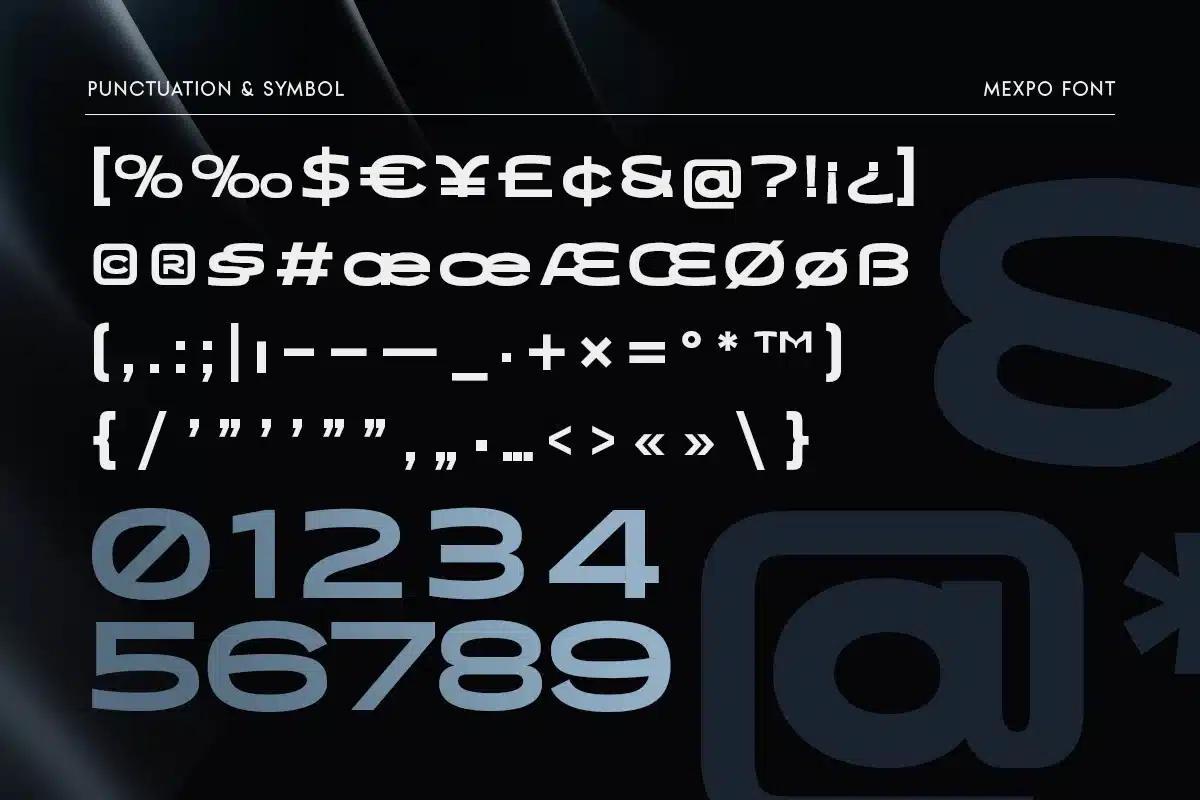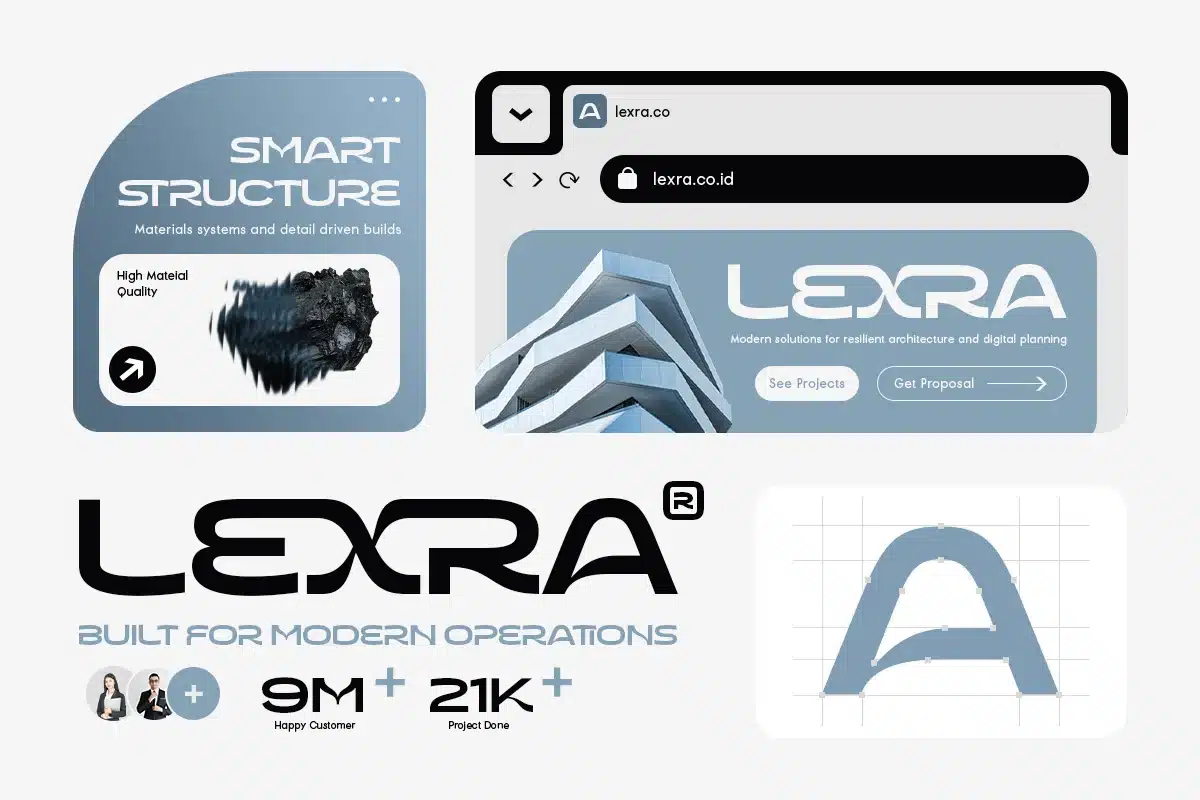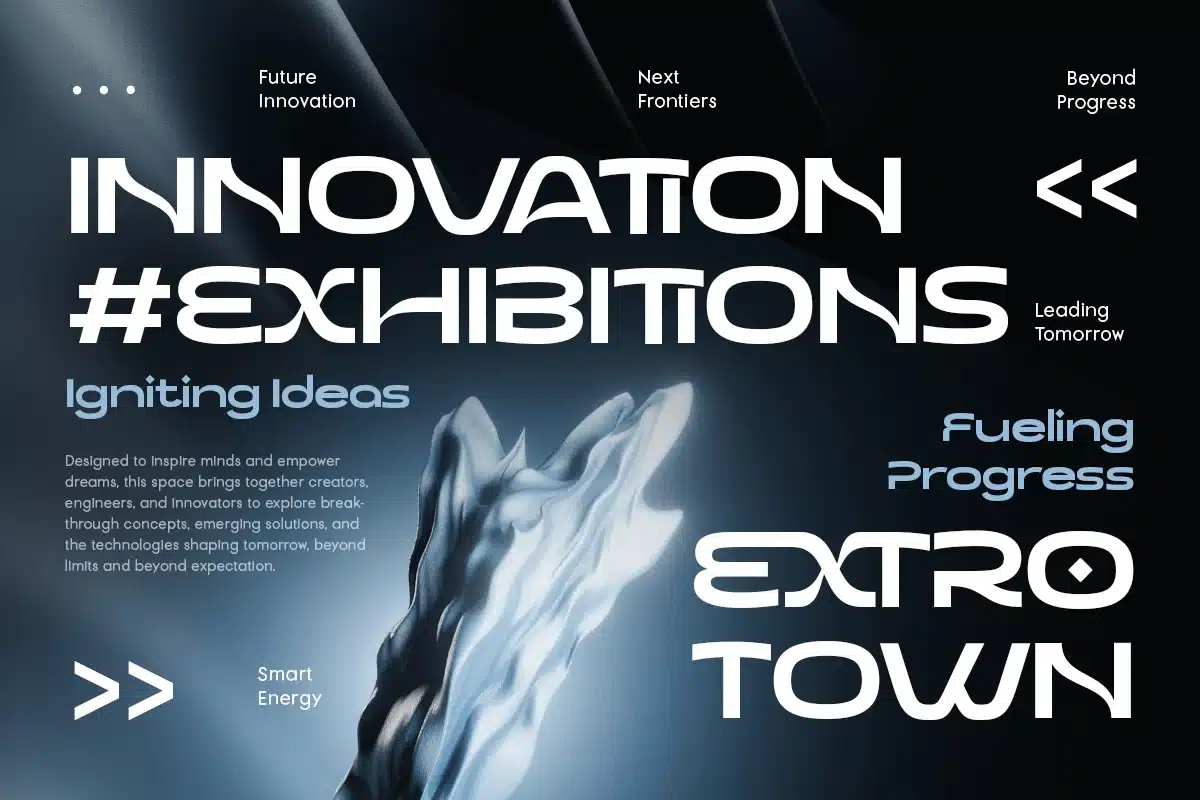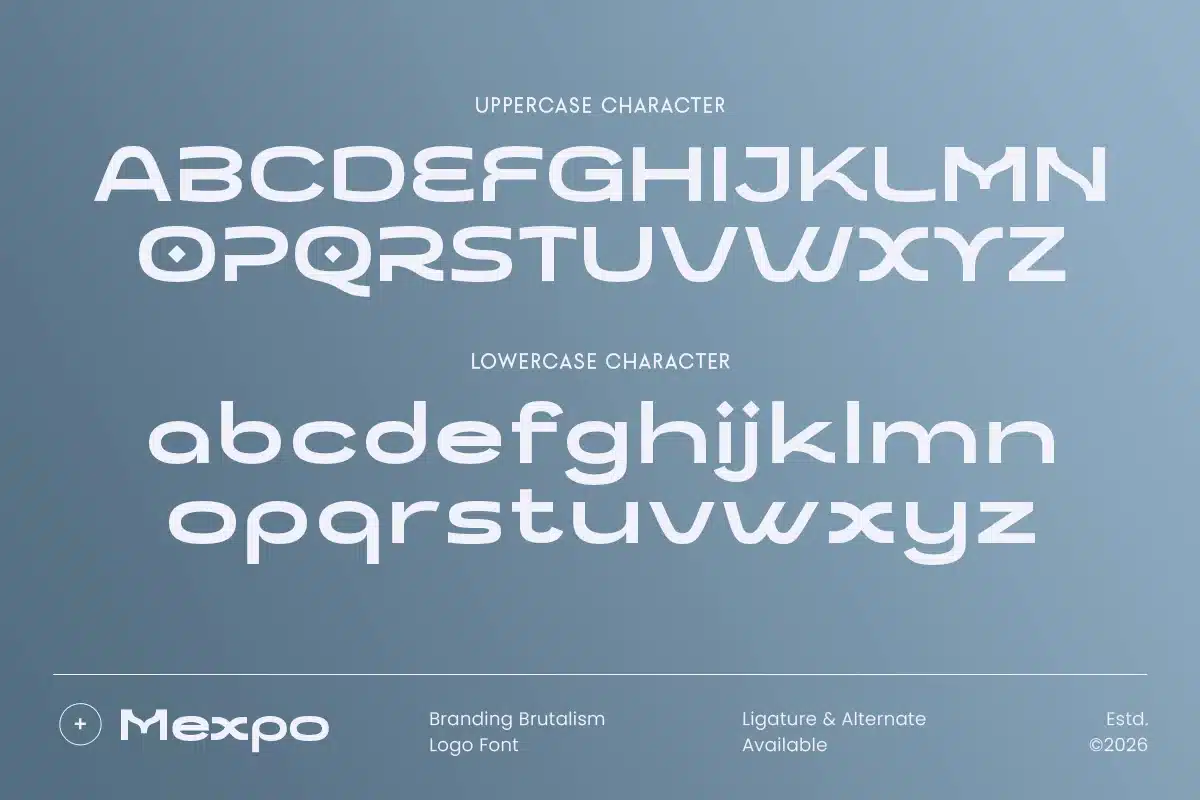
Mexpo – Branding Brutalism Logo Font
Mexpo is a bold brutalism logo font designed to create strong, raw, and impactful visual statements. Inspired by modern brutalist aesthetics, Mexpo features solid letterforms, sharp structure, and confident geometry—making it perfect for branding, logos, posters, merchandise, tech startups, and experimental design projects.
With its powerful presence and contemporary edge, Mexpo delivers high visual impact while maintaining clean construction and readability. This font is ideal for brands seeking a disruptive, modern, and unapologetically bold identity.
Mexpo – Branding Brutalism Logo Font Features:
- Bold brutalism-inspired letterforms
- Strong geometric structure
- Ideal for logos, branding, posters, and merchandise
- Perfect for modern, edgy, and experimental designs
Create fearless branding with Mexpo – the brutalism logo font built for bold visual impact.